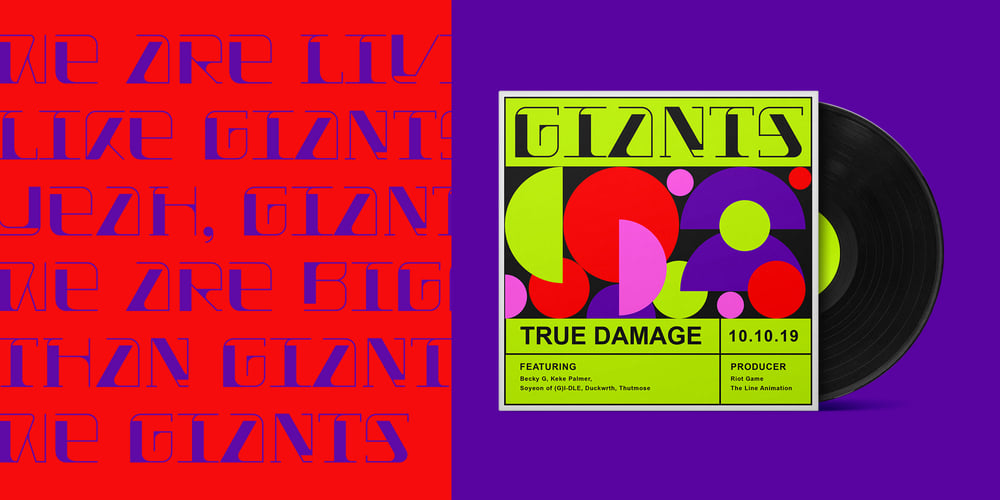
MGN Debris
MGN Debris font
MGN Debris Font Family was designed by Muhamad Masyhuri, Fattah Setiawan and published by Morgana Studio. MGN Debris contains 2 styles and family package options. This design is characterized by its futuristic and modern aesthetic. The clean lines and minimalist approach create a sleek and sophisticated look, while the unique touches and use of the MGN Debris font give it a bold and edgy vibe. It is a perfect example of how a modern design can also be unique and innovative, with elements that set it apart from traditional designs. This style is perfect for businesses and organizations that want to convey a sense of innovation and cutting-edge technology.The MGN Debris font used in this design adds to its modern and futuristic feel. The font is bold and sharp, with a unique style that makes it stand out. It complements the overall design perfectly and adds to the edgy and unique vibe. This font is perfect for businesses and organizations that want to convey a sense of innovation and forward-thinking, and it pairs well with modern designs. Overall, this design is a great example of how a modern and futuristic style can be unique and captivating, with the use of the MGN Debris font adding an extra element of boldness and edge.